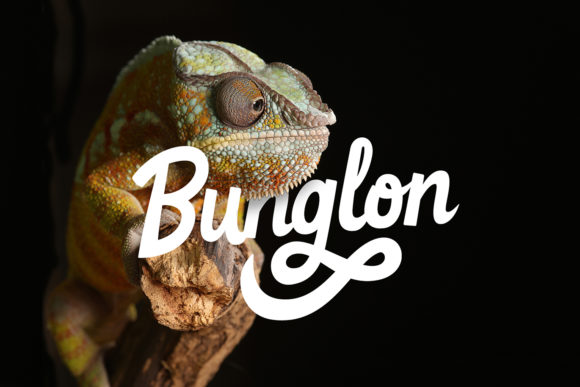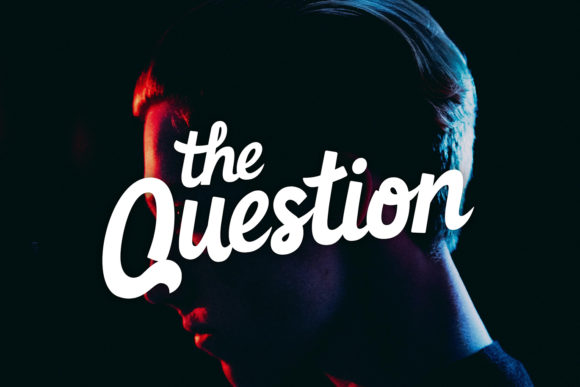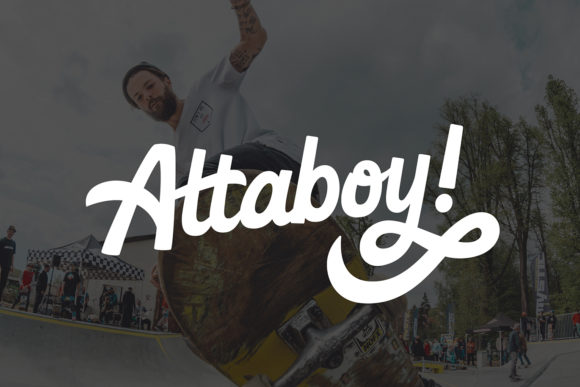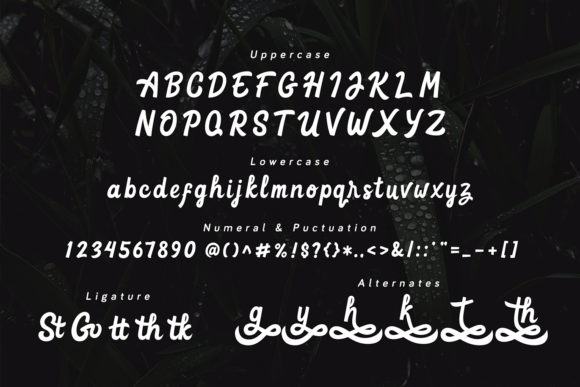
HomeScript FontsGoteru Font Script Fonts Goteru Font FacebookXPinterestWhatsApp Goteru Font Poster 2 Goteru Font Poster 3 Goteru Font Poster 4 Goteru Font Poster 5 About Goteru Font Goteru is a stunning and bold handwritten font with a unique twist. Get inspired by its powerful swashes. DOWNLOAD ON CREATIVE FABRICAThis font is sold and delivered by Creative Fabrica. Font Canyon may earn a commission if you buy through this link. People also explored Sellina World Font Spiraling Down Thetwilight Font Hilland Font Lisbon Font Housebroken Font Valentine Font Daily Spark Font Bakery Font 363 0 TagsGoteru Font Previous articleStaryl FontNext articleEstonia Park Font LEAVE A REPLY Cancel reply Comment: Please enter your comment! Name:* Please enter your name here Email:* You have entered an incorrect email address! Please enter your email address here Website: Save my name, email, and website in this browser for the next time I comment. Personal Use Free Yumail Personal Use Free Read more about this font Stone Garden Personal Use Free Read more about this font Love Memories Personal Use Free Read more about this font Earwig Factory Personal Use Free Read more about this font BLOG Exploring Font Trends Shaping Communication in the Digital Era Fonts, like all design elements, are subject to trends. They play a crucial role in communicating a brand's personality,... Using Fonts in Digital Marketing: Tips to Strengthen Your Brand Identity The 10 Best Handwriting Fonts to Add Personality to Your Designs How to Cut Any Font on Cricut: Convert a Font to SVG (Free)